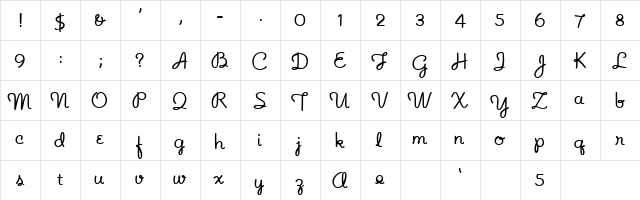
NoodleScript Regular Font Preview
NoodleScript Regular
Design Context for NoodleScript Typeface
NoodleScript flows with the natural rhythm of handwritten lettering, making it ideal for designs that call for warmth and personal expression.
Font Pairing: Combine NoodleScript with a simple geometric sans for maximum contrast — the tension between flowing curves and clean structure is a classic typographic pairing.
Pro Tip: Pair NoodleScript with a clean sans-serif for supporting text. The contrast between fluid script and geometric structure creates an elegant typographic hierarchy.